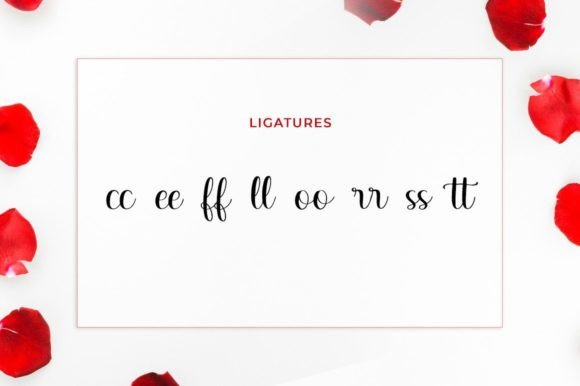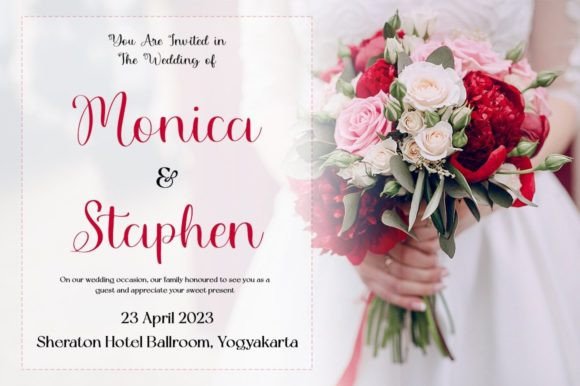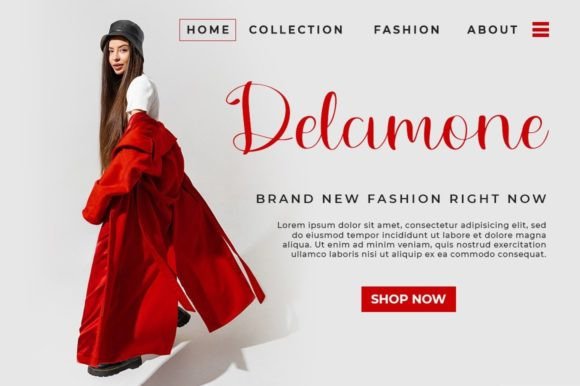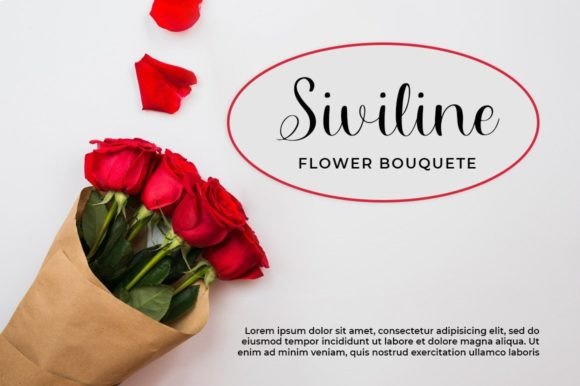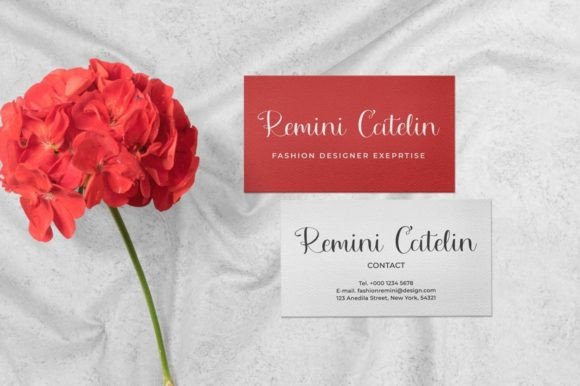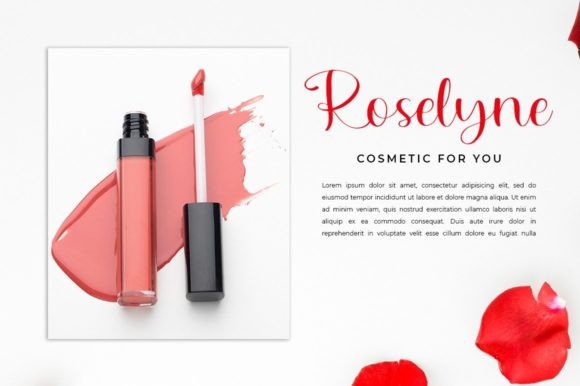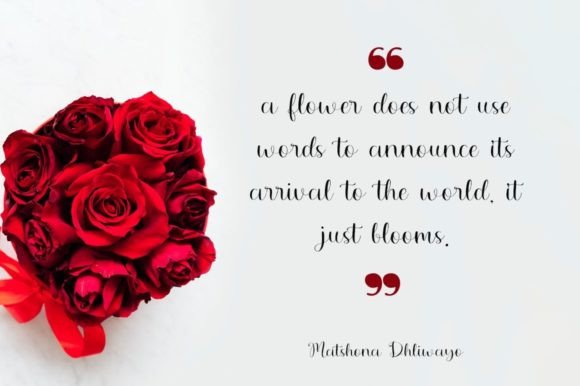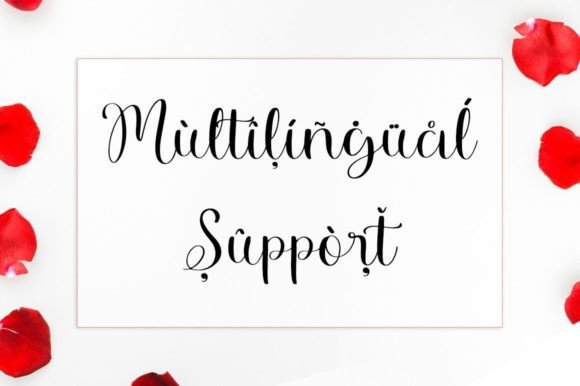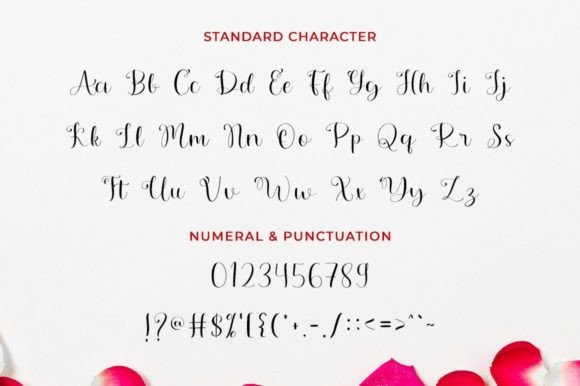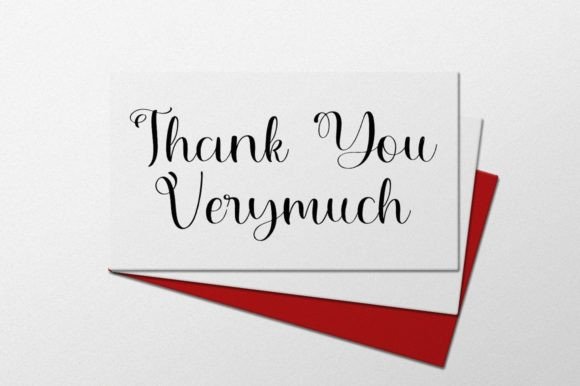
Beneliona Font
About Beneliona Font
The Beneliona Script is a beautiful script font that brings a personal touch to your latest art project, boasting an elegant, classy, and modern look. This font offers gorgeous typography, making it perfect for a wide range of creative endeavors. From logos and branding to invitations, stationery, wedding designs, social media posts, advertisements, product packaging, product designs, labels, photography, watermarks, special events, and more, the Beneliona Script adds a distinctive handwriting taste to elevate your projects.
Its elegance and modernity make it a versatile choice, ensuring that it seamlessly adapts to various contexts and design needs. Whether you’re working on formal branding or more expressive and personal projects, the Beneliona Script provides a stylish and sophisticated typographic solution.
The font’s PUA encoding is a notable feature, allowing easy access to an array of amazing glyphs and ligatures. This feature enhances the font’s flexibility, enabling you to explore and incorporate various design elements effortlessly.
In conclusion, the Beneliona Script is more than just a font; it’s a creative tool meticulously crafted to add an elegant, classy, and modern touch to your designs. Whether used for professional branding or more personal artistic projects, this script font ensures that your creations stand out with a distinct and refined handwriting taste, making it a valuable asset in your design toolkit.